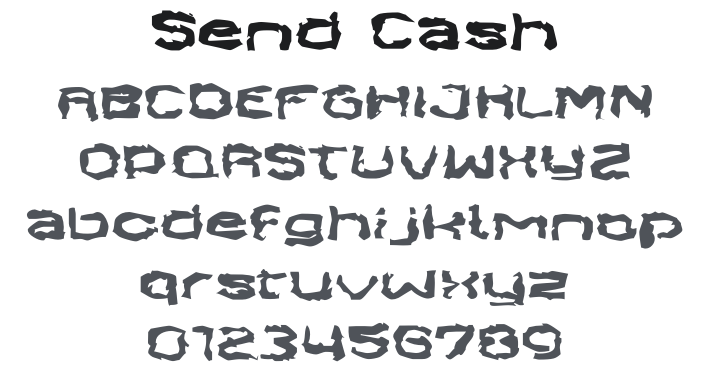
Send Cash Font
About Send Cash
Send Cash is a bold, heavily distorted display typeface where thick, chunky letterforms appear warped, melted, and twisted — as if the type has been physically bent and squeezed out of shape, with jagged internal tears and collapsed strokes that feel genuinely broken. The result is raw, unsettling, and chaotic. Perfect for horror designs, punk branding, underground zines, extreme music posters, and any headline that needs to look like it barely survived something violent.